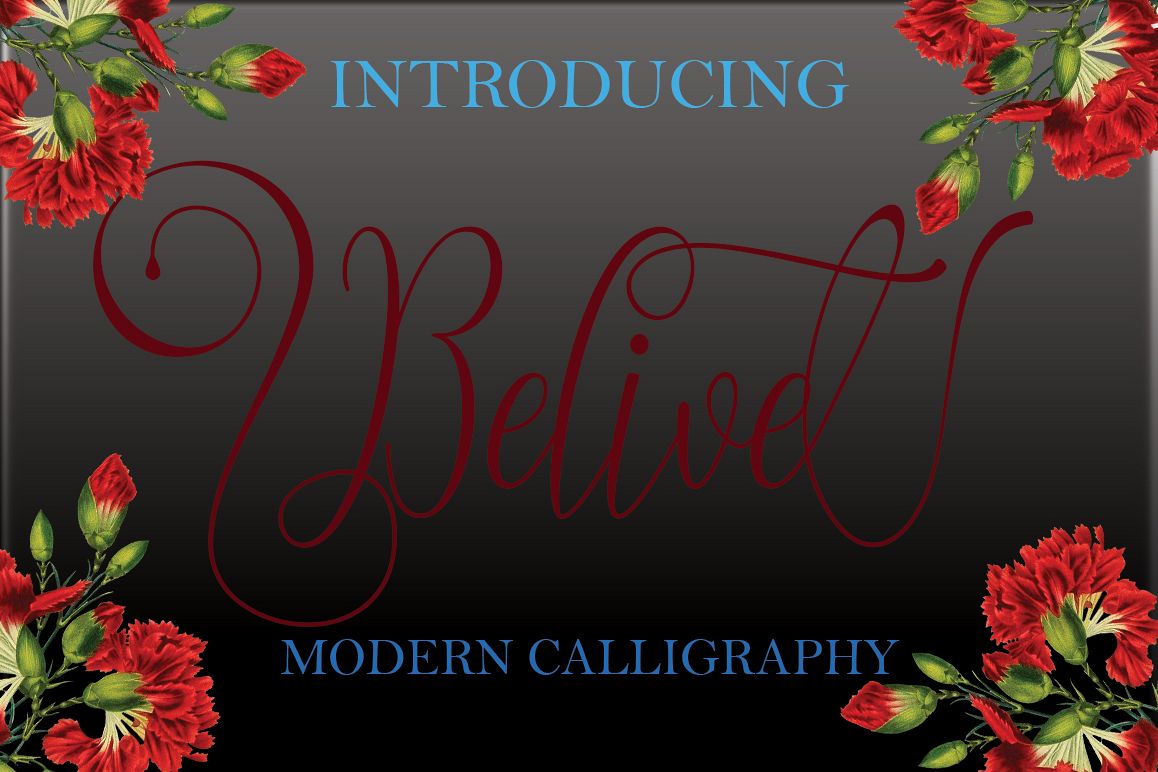
Belive
Belive Script is a stylish calligraphy font that features a varying baseline, smooth line, classic and elegant touch. Can be used for various purposes.such as headings, signature, logos, wedding invitation, t-shirt, letterhead, signage, lable, news, posters, badges etc.
The Features of this fonts is:
• Standart ligatures
• PUA Unicode (Private Use Areas)
• Swash